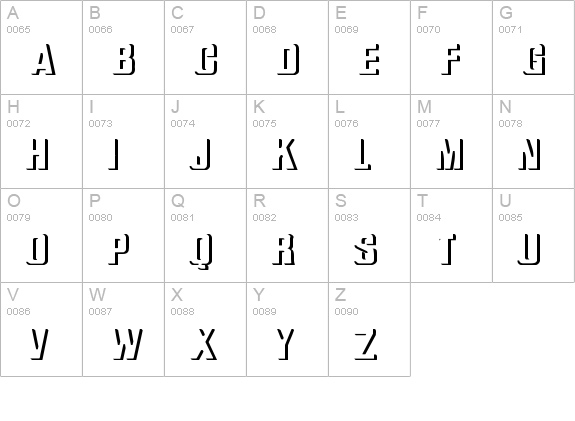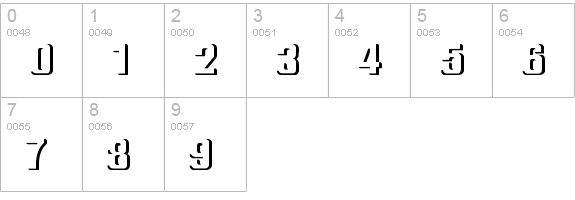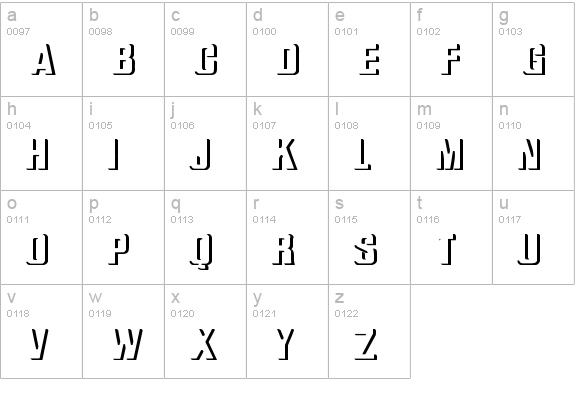
WhatA-Relief Bold is a strong, high-contrast variant in the WhatA typeface family \xE2\x80\x94 well suited to headlines, attention-grabbing titles, and strong calls-to-action.
Introducing WhatA-Relief Bold font, the epitome of visual impact and artistic expression. This dynamic typeface exudes confidence and commands attention with its bold and striking design. Each letter is meticulously crafted, showcasing a unique combination of sharp angles and smooth curves that adds depth and dimension to any project. What sets WhatA-Relief Bold font apart is its versatility. Whether you're designing a poster, branding materials, or even a website, this font will effortlessly elevate your work to new heights. Its powerful presence demands to be noticed, making it perfect for headlines, titles, and captivating slogans. But what truly sets WhatA-Relief Bold font apart from the rest is its accessibility. It is freely available to download at FontsMarket.com, ensuring that everyone can benefit from its captivating charm. With just a few clicks, you can enhance your designs and unleash your creativity to its fullest potential. The striking impact of WhatA-Relief Bold font lies not only in its design but also in its ability to convey emotions. Its boldness evokes a sense of strength and determination, while its unique contours and proportions add a touch of sophistication and elegance. It is a font that speaks volumes without saying a word, making it a valuable asset in any designer's toolkit. Embrace the power of WhatA-Relief Bold font and let it breathe life into your projects. With its visually arresting design and availability as a free download at FontsMarket.com, there's no reason not to add this font to your collection. Stand out from the crowd, make a statement, and leave a lasting impression with WhatA-Relief Bold font.